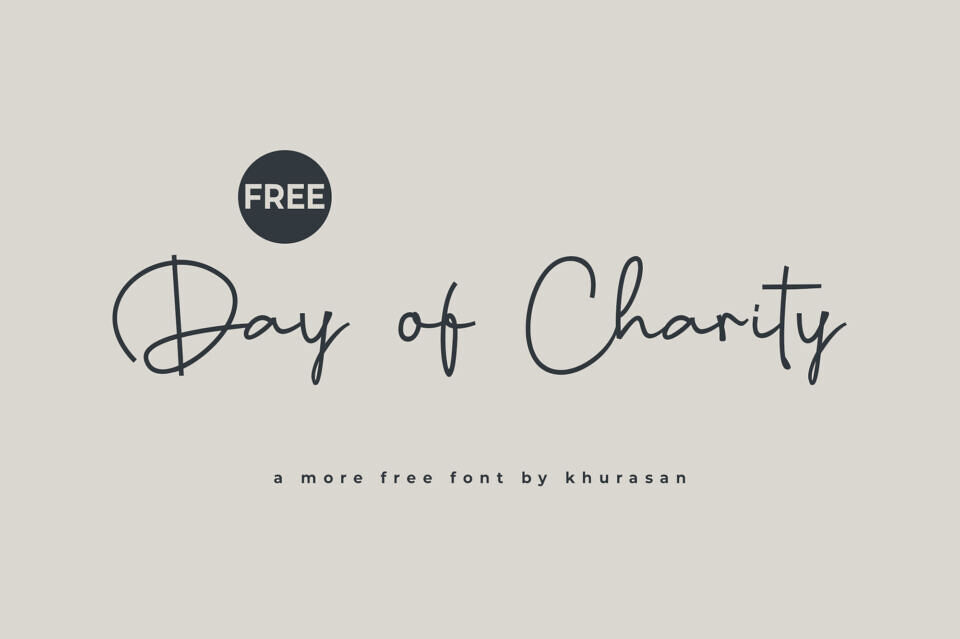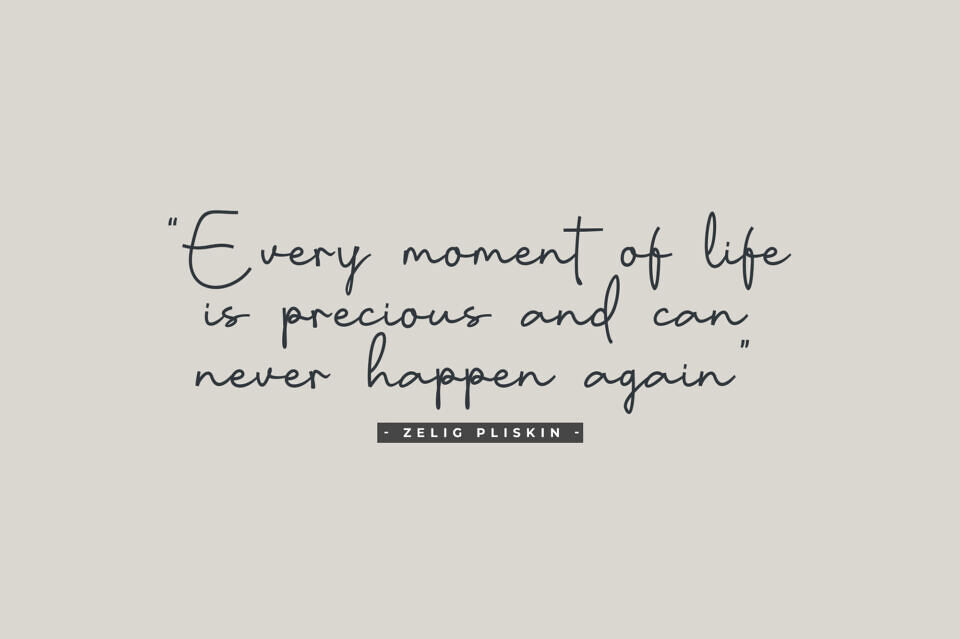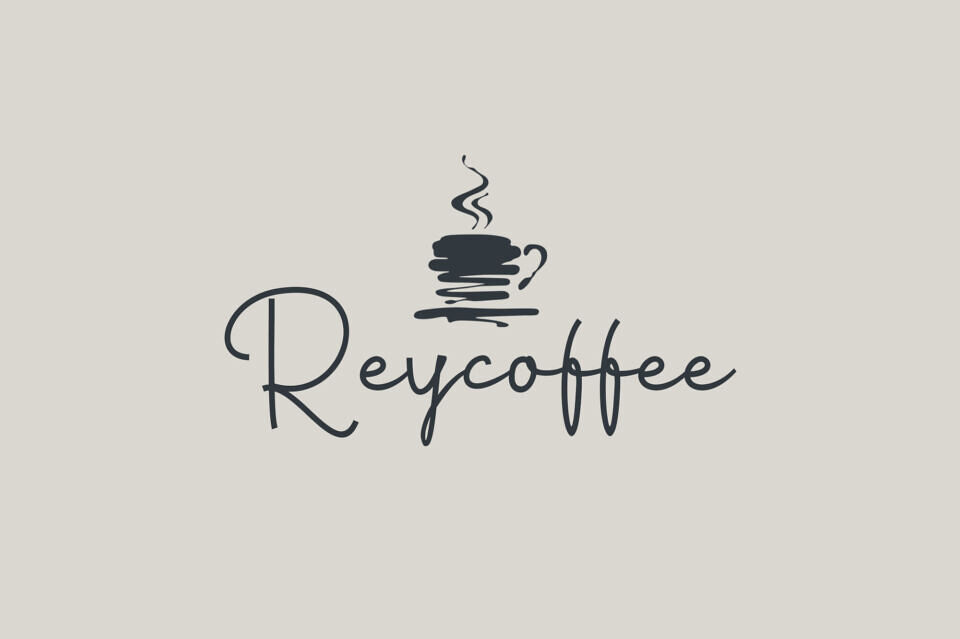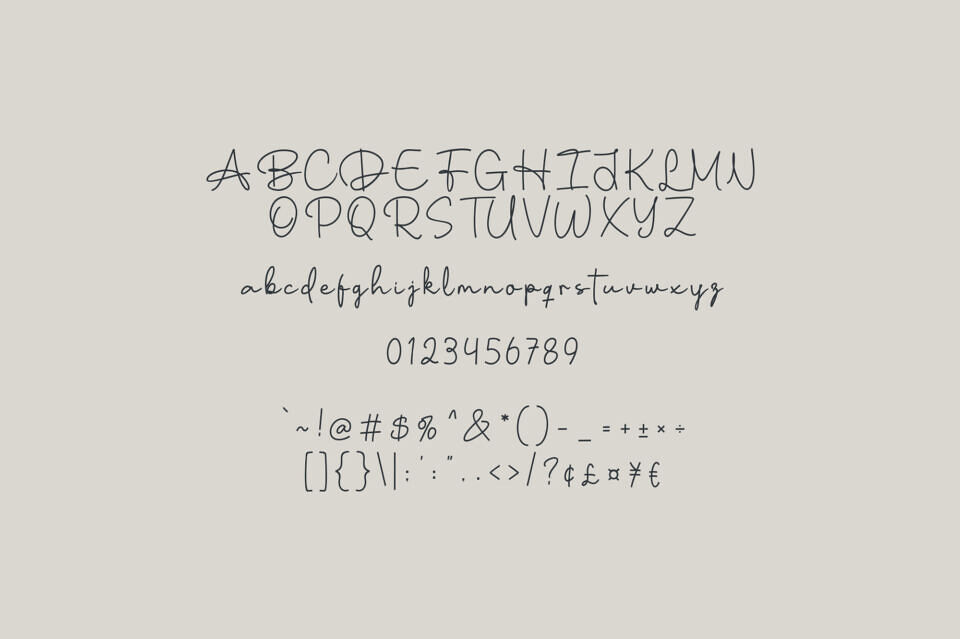
Days of Charity is a modern handwritten script font with a clean, flowing style that mimics natural penmanship. Its elegant monoline strokes and slightly slanted letterforms give it a casual yet refined look, perfect for adding a personal touch to any design.
Days of Charity works beautifully across a wide range of creative projects, including branding, blog headers, social media graphics, quotes, invitations, product packaging, and minimalist logos. Designed for versatility and legibility, this font brings warmth and authenticity while maintaining a sleek, contemporary feel.